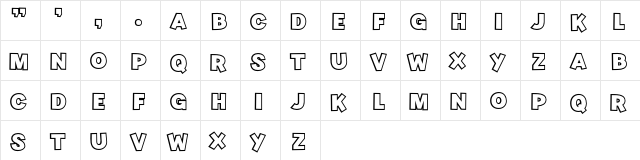
Kiwi Outline Regular
| Foundry | SparkyType |
| Designer | David Buck |
Design Context for Kiwi Outline Typeface
Kiwi Outline is built around its visual character rather than neutral utility — its distinctive forms are designed to make an impression at display sizes.
Font Pairing: Pair with a clean neutral sans-serif for body copy to let Kiwi Outline's character lead without overwhelming the composition.
Pro Tip: Use Kiwi Outline exclusively at display sizes — it was designed to be seen, not read at length. Let a neutral companion handle body copy.